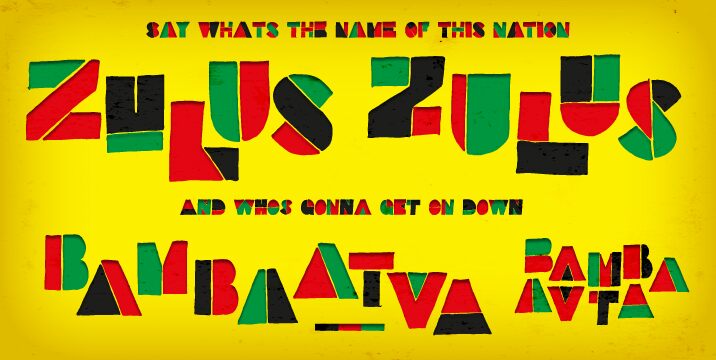
StefffontSetB by Steffen and Ulrich of Adobe Systems Incorporated is a free futuristic display font with broad, tightly packed geometric lettering and a sharply engineered silhouette. Thin cuts split the dense forms into irregular panels.
As a mechanical title treatment, it suits game title screens, electronic music posters, and branding for science fiction events, where the segmented shapes suggest retro-futurist machinery and instrument control panels. The same fractured geometry can connect the lettering with circuit-board diagrams, angular spacecraft illustrations, hard-edged icons, or patterned packaging for technology products.
Stefffont Set B
Steffen & Ulrich